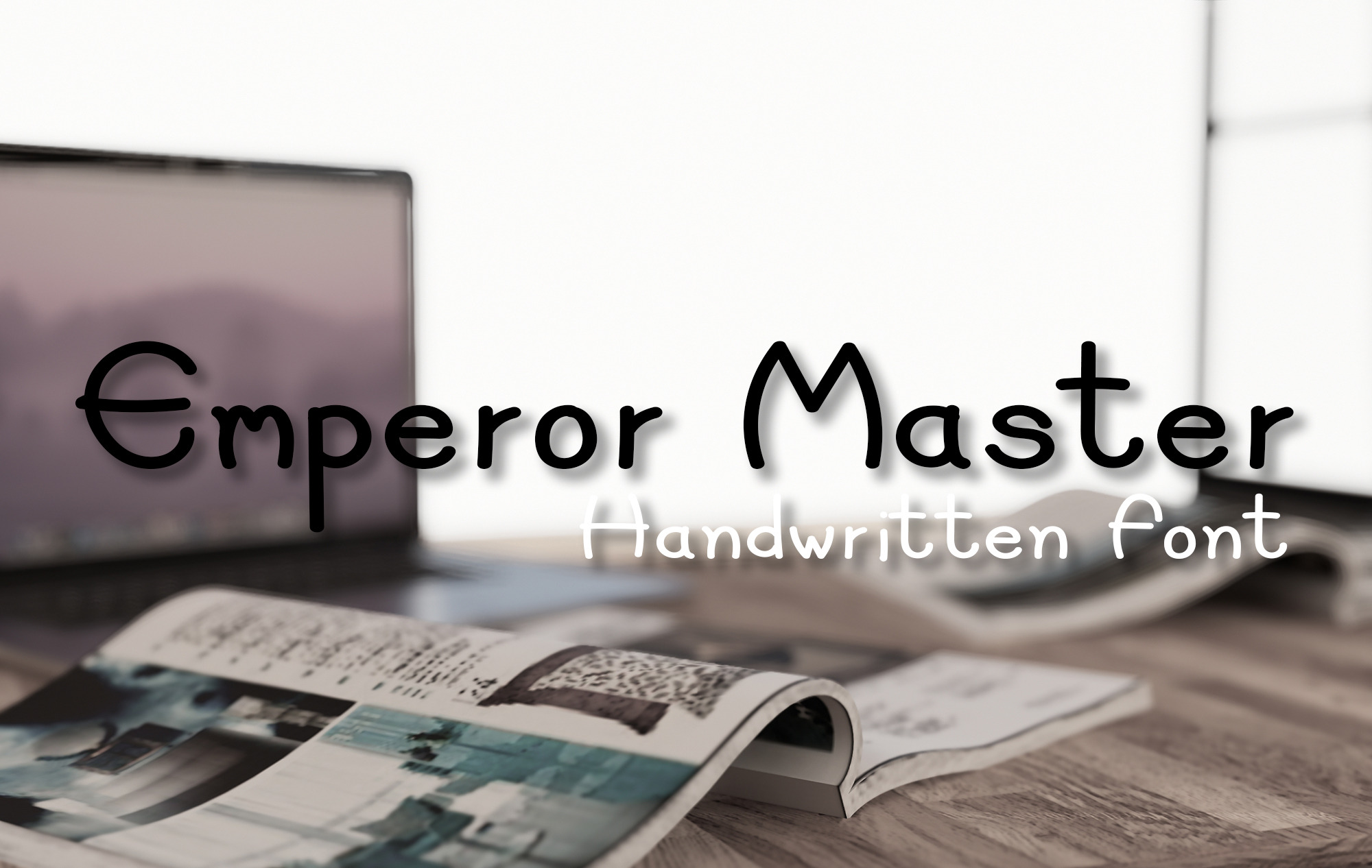
Emperor Master font
The Emperor Master font is a handwriting font that looks firm, calm, and perfect for supporting the article. Or highlight the headings or as you want them to be used. Thank you.